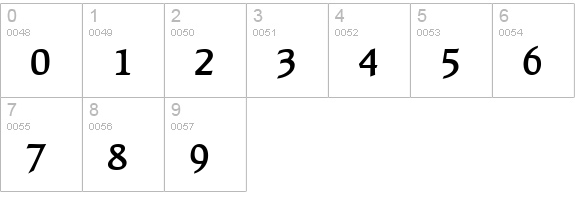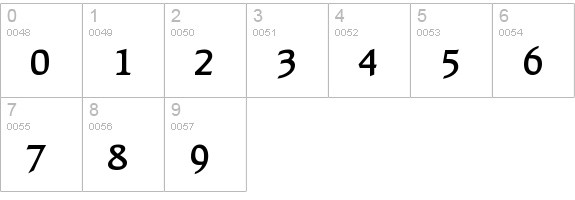
Recognita Book SSi Semi Bold is a comfortable, highly readable variant in the Recognita typeface family \xE2\x80\x94 well suited to long-form body text, articles, and editorial content.
Recognita Book SSi Semi Bold is a visually appealing font that effortlessly combines modernity with a touch of elegance. Its semi-bold weight strikes the perfect balance between boldness and delicacy, making it an ideal choice for various design projects. This font exudes confidence and sophistication, making it suitable for both corporate and creative endeavors. Whether you are designing a sleek logo, crafting a professional presentation, or creating eye-catching advertisements, Recognita Book SSi Semi Bold will elevate your work to new heights. With its clean lines and well-defined letterforms, this font ensures excellent readability at both small and large sizes. Its subtle curves and precise angles lend a sense of harmony and balance to your designs, captivating the viewer's attention and leaving a lasting impression. But what makes Recognita Book SSi Semi Bold truly special is that it is freely available to download at FontsMarket.com. This means that you can effortlessly enhance your design projects without worrying about any additional costs. The accessibility and versatility of this font make it a valuable asset for both professional designers and hobbyists alike. So why wait? Take advantage of the opportunity to enhance your design arsenal with Recognita Book SSi Semi Bold. Download it now from FontsMarket.com and unlock a world of creative possibilities. Whether you are working on a branding project, a magazine layout, or a website design, this font will add a touch of elegance and professionalism to your work.